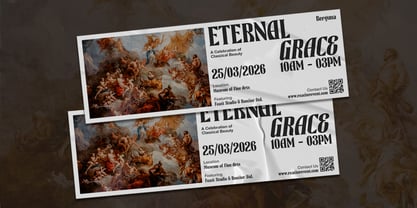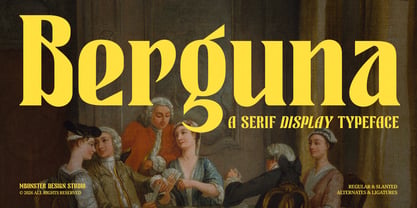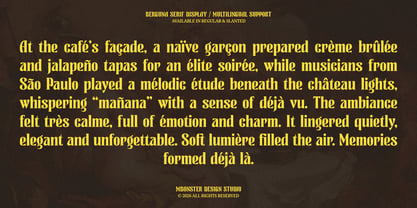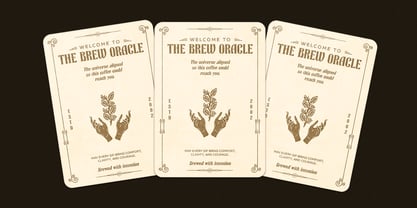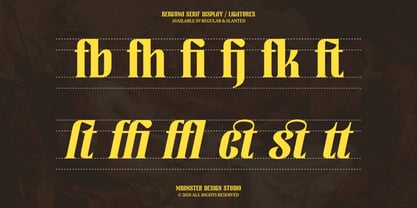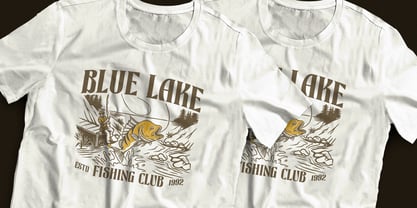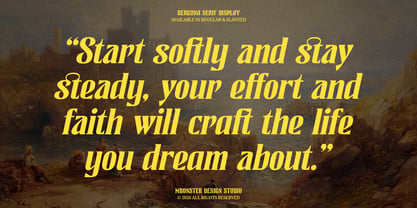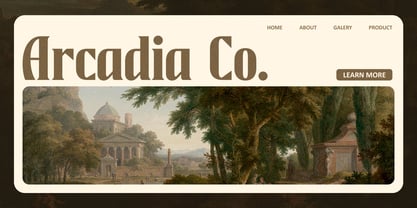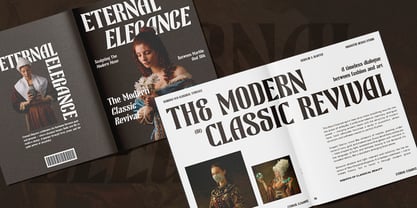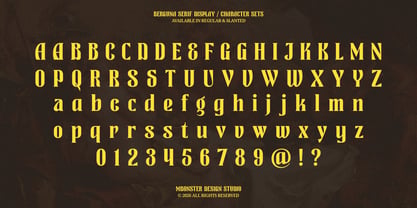
Berguna
by Mbonster
The Berguna Font Family was designed by Rizka Rony Setiawan and published by Mbonster. Berguna contains 2 styles and family package options. More about this family
Berguna is a classic-inspired display serif typeface with a modern touch. It features bold forms, strong contrast, and a distinctive character that reads with confidence at large sizes.
Use Berguna when you want typography to carry the mood. It suits headlines, posters, branding, logos, editorial design, packaging, quotes, and any project that calls for a warm, artistic, and timeless feel. The result is a display serif that feels familiar but not nostalgic, with enough personality to stand on its own across print and digital design.
Designers: Rizka Rony Setiawan
Foundry: Mbonster